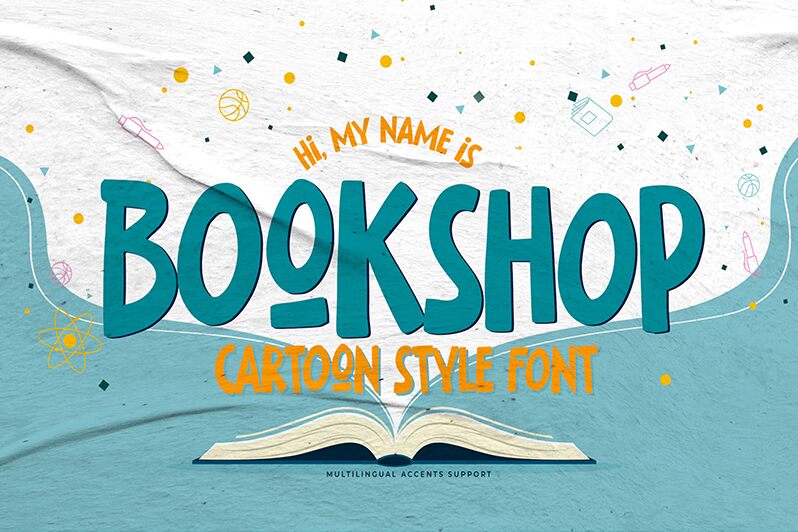
Bookshop font from Gassstype is a cartoon display font with an inviting presence. It has a bold weight, short vertical lines, and rounded corners which works together to create legible characters. The position and width of the shadow lines vary from one character to another which enhances the playful look. If your project also needs numbers and symbols, this free font provides both.
This cheerful set is great for children’s activity books, business cards design mockups, posters promoting events for kids or school activities. It can also work with Ads banners, screen interfaces of games or mobile applications as well as websites for bookstores or libraries.